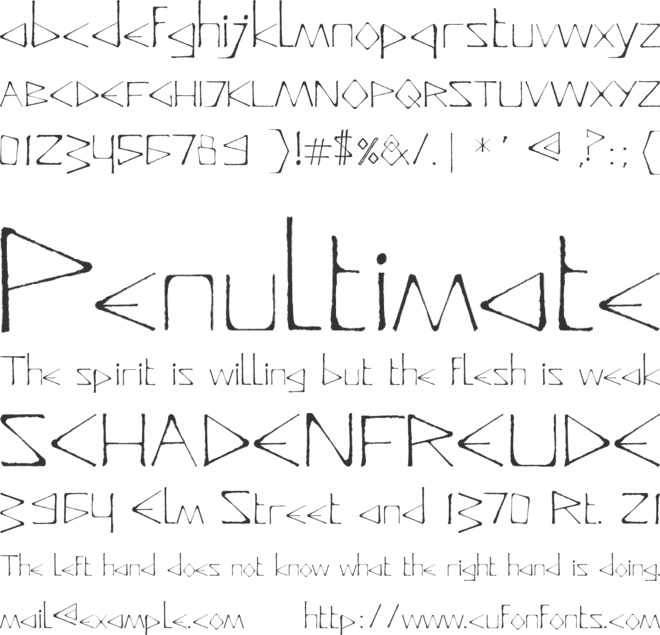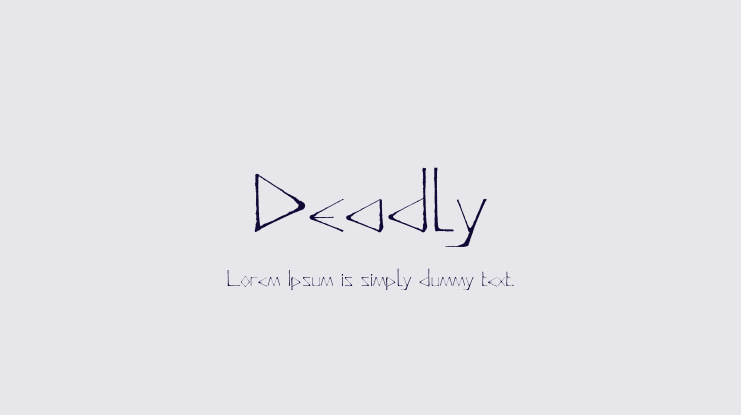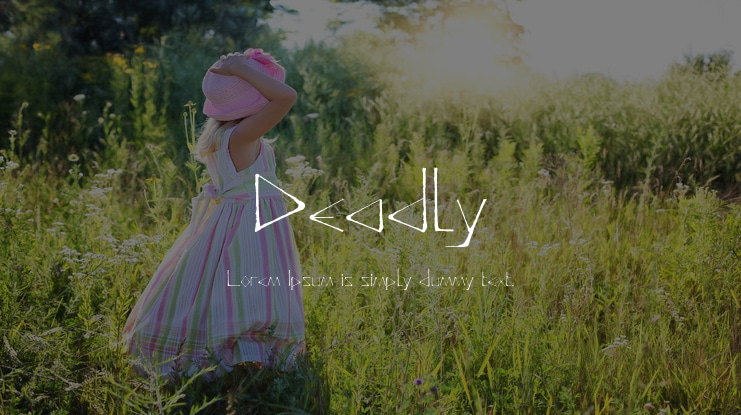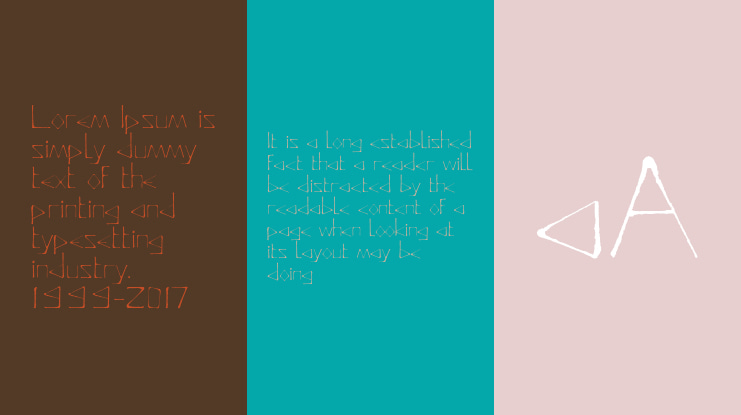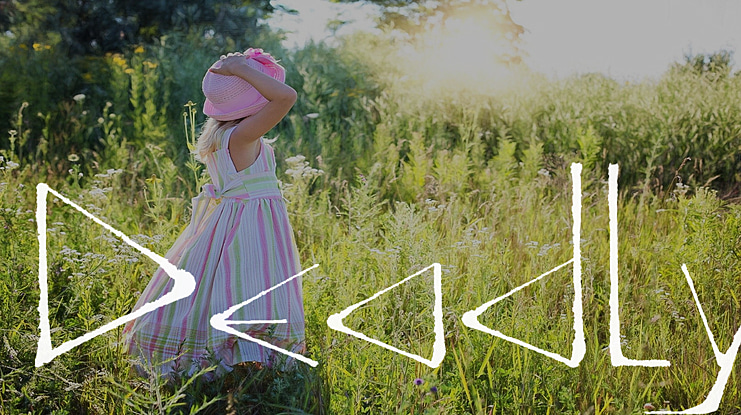
Deadly Font
Mark making can be a very effective technique for designers to produce any kind or variety of patterns and textures. This particular typeface is called Deadly based on the shape and texture of the characters and how they work together with certain words. By changing the colour, size and background, it may be possible to change the personality of the type. Pink letters on a white background may produce a different meaning to red on black which might possibly be used to advertise a horror movie or a heavy metal band.